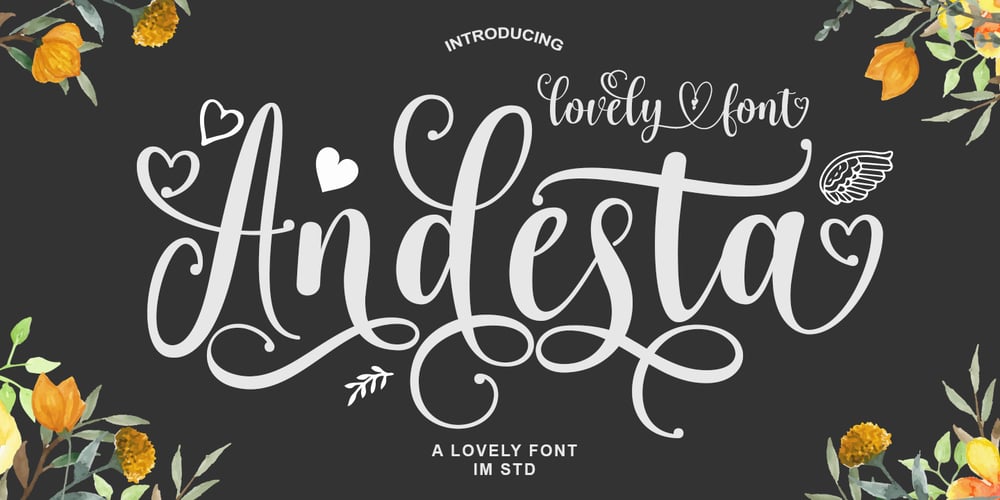
Andesta
Andesta font
Andesta Font Family was designed by Ikhsan Maulana and published by IM Studio. Andesta contains 1 styles and family package options. Andesta in a beautiful handwritten style with a touch of love style. Equipped with 391 glyphs Andesta is perfect for branding projects, home appliance design, product packaging, use in business cards, invitation cards, etc. Simply as a stylish text overlay onto a background image or anything else that needs a touch of elegance.